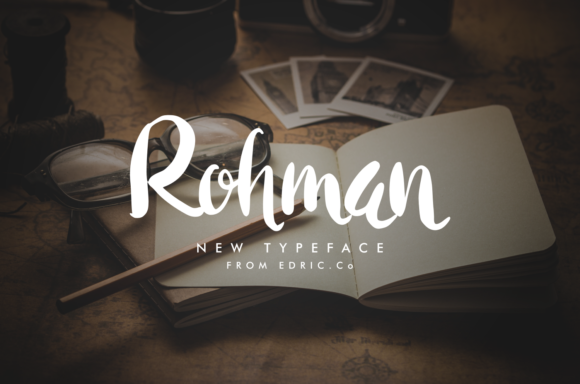
Introducing the Rohman Font: A Stroke of Handcrafted Charm for Your Digital Palette
Immerse yourself in the world of Rohman Font, a captivating script font that exudes elegance and a touch of whimsy. Its meticulously crafted characters dance across your screen, leaving a trail of visual delight. Inspired by the beauty of handwritten notes, Rohman Font is a symphony of curves and flourishes that will infuse your creative projects with a personal touch.
Enter a realm of boundless creativity where Rohman Font reigns supreme. With its contemporary twist, this font transcends time, effortlessly adapting to modern aesthetics while preserving its timeless charm. Whether you're designing logos, crafting social media posts, or creating stunning invitations, Rohman Font is your ultimate companion, beckoning you to explore the depths of your imagination.
Unleash the romantic within and let the Rohman Font weave its magic. Its graceful lines and delicate details are a testament to the power of expression, evoking emotions and leaving lasting impressions. This font is not just a collection of letters; it's an ode to love, friendship, and the beauty of human connection.
With Rohman Font at your fingertips, you'll discover a world where creativity knows no bounds. Its versatility extends across a myriad of projects, from heartfelt wedding invitations to captivating posters that demand attention. Let your imagination soar as you explore the endless possibilities that await you.
Feel the pulse of inspiration coursing through your veins as you witness the transformative power of Rohman Font. Its sophisticated strokes elevate your designs, adding a touch of refinement and sophistication that commands respect. This font is more than just a tool; it's an extension of your creative spirit, empowering you to make a statement that resonates with your audience.
Journey into the realm of Rohman Font and embark on a creative odyssey that will redefine your design horizons. Embrace the beauty of handwritten charm and let your imagination flourish. The Rohman Font awaits your touch, ready to ignite your passion and paint the world with your unique vision.